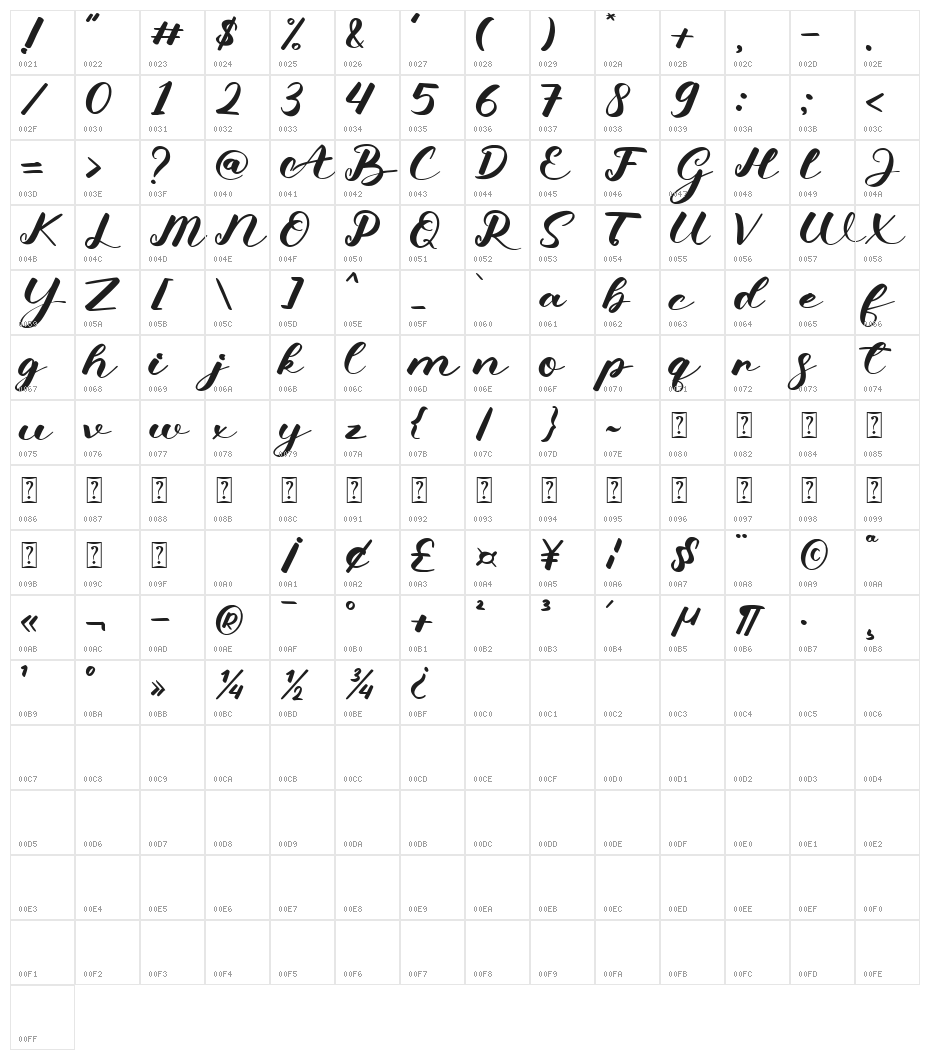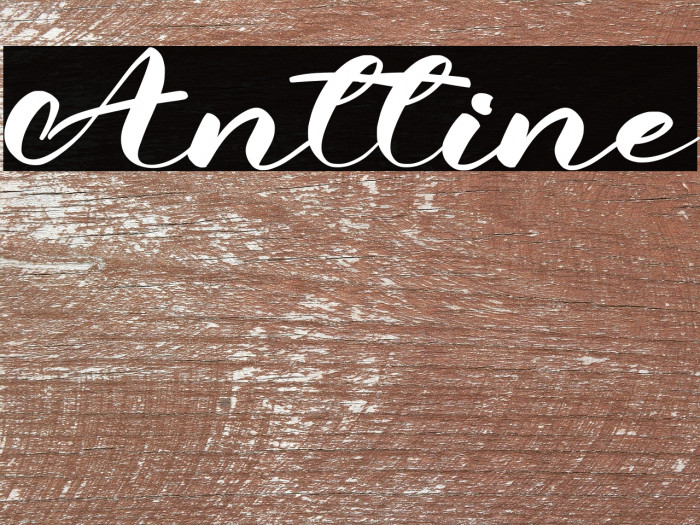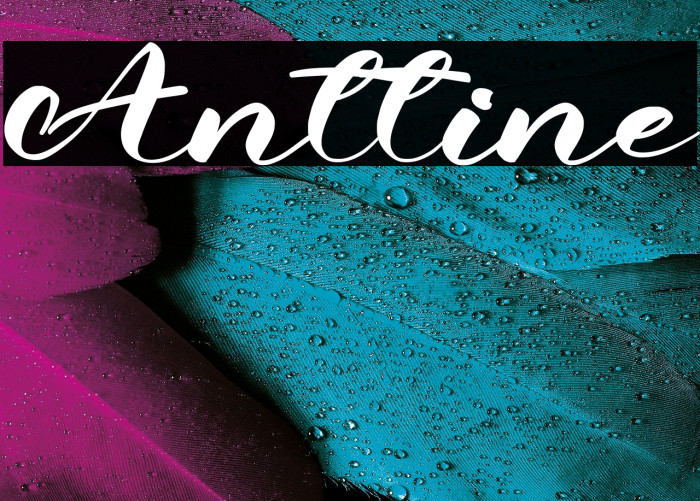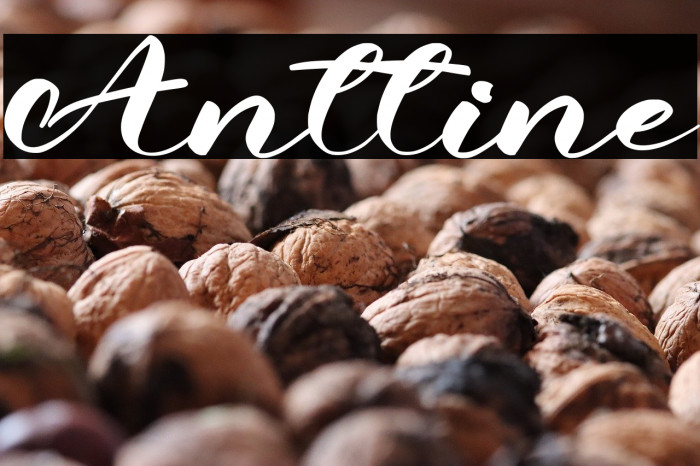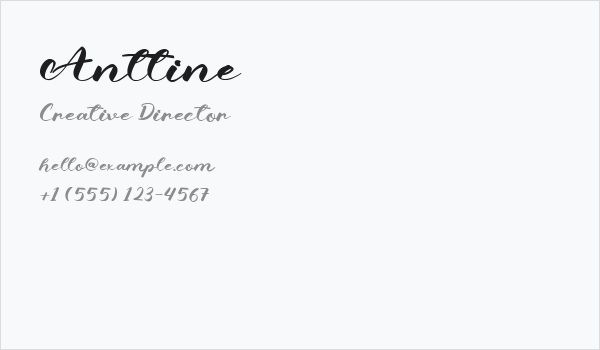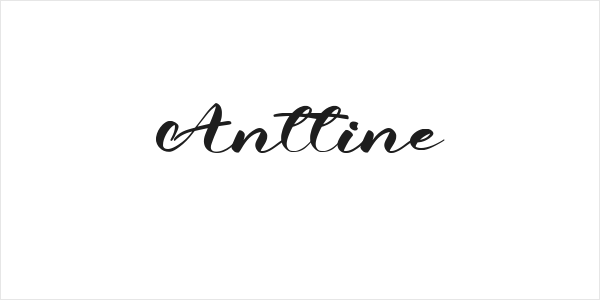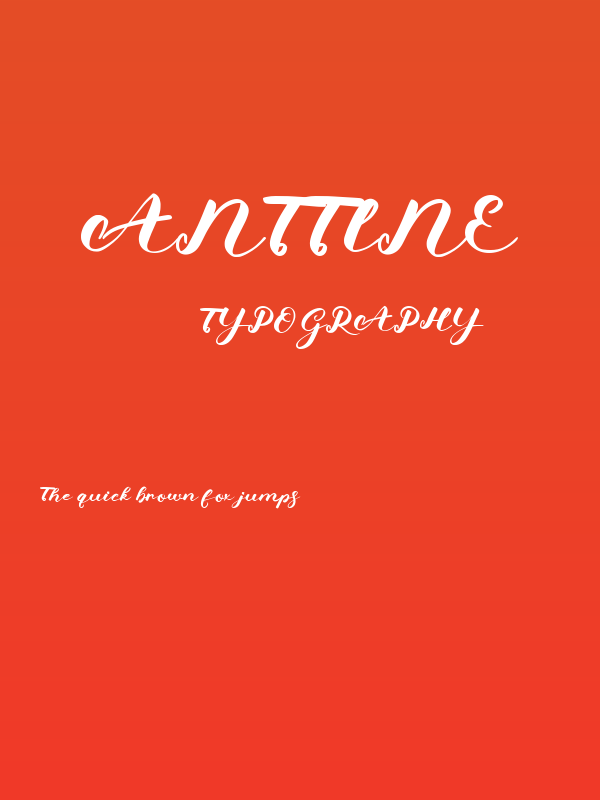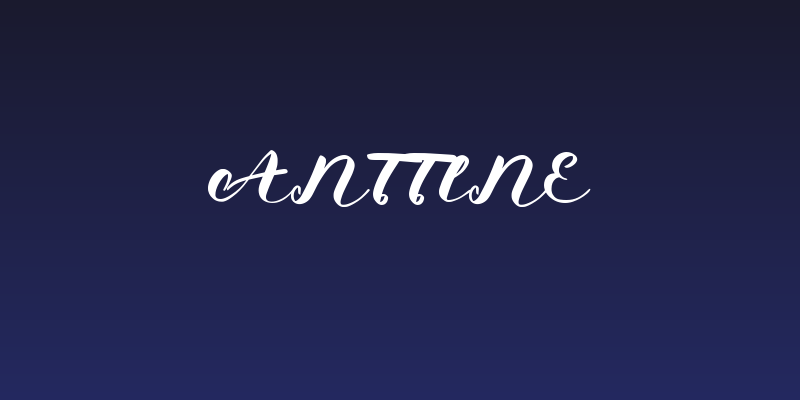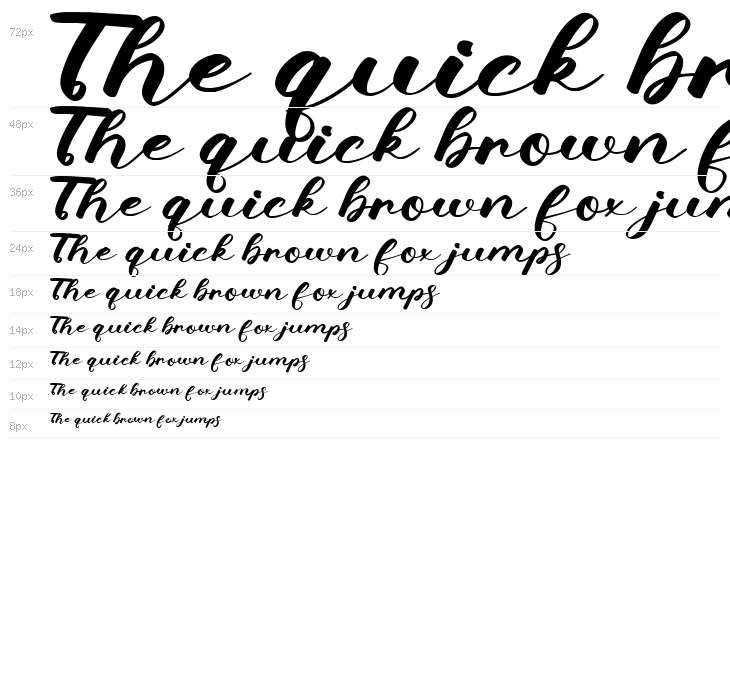
Anttine Font
Anttine Description
This font features a flowing, cursive style with elegant loops and swashes, giving it a sophisticated and artistic appearance. The uppercase letters are bold and prominent, with distinctive flourishes that add a touch of flair. The lowercase letters maintain a consistent flow, enhancing readability while preserving the decorative nature of the script. Numbers and special characters are designed to match the overall aesthetic, making them suitable for a variety of creative applications. The font's smooth curves and balanced proportions make it ideal for projects that require a touch of elegance and personalization.
| Use Case | Logos, Headlines, Invitations |
| Proposed Projects | Ideal for wedding invitations, greeting cards, branding, and logo design. |